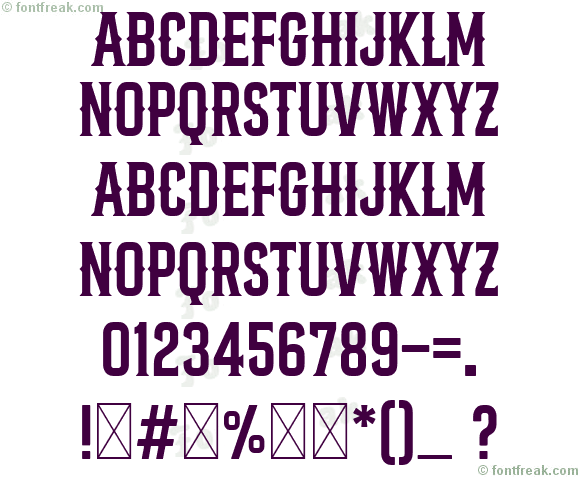
Bronco
Bronco by Mukhlis Muhammad is a striking display font that embodies a bold and modern aesthetic, making it an excellent choice for various creative projects. This font falls into the variatype category, characterized by its unique blend of contemporary and classic influences. The visual style of Bronco features strong, thick strokes that provide a commanding presence, while its well-balanced spacing ensures readability. The design incorporates subtle decorative elements that add personality without overwhelming the overall look, making it suitable for both headlines and body text.
The Bronco font is well-suited for a range of applications, including eye-catching movie posters, vibrant restaurant menus, and stylish branding for small businesses. Its robust appearance makes it ideal for wedding invitations that seek to make a statement, while also appealing to content creators looking to elevate their graphics on social media platforms. Graphic designers will find that Bronco adds a unique flair to their projects, allowing for creative versatility across various mediums.
Targeted towards graphic designers, small business owners, and content creators, the Bronco font free download offers an accessible option for those looking to enhance their visual communications. Its versatility and boldness cater to both professional and personal projects, making it a favorite among users seeking impactful typography.
What sets Bronco apart is its perfect balance of strength and style, making it a standout choice in the world of display fonts. Whether you’re crafting a memorable brand identity or designing captivating promotional materials, Bronco delivers a distinctive look that is sure to leave a lasting impression. Embrace the uniqueness of this font and elevate your designs with the striking presence of Bronco.